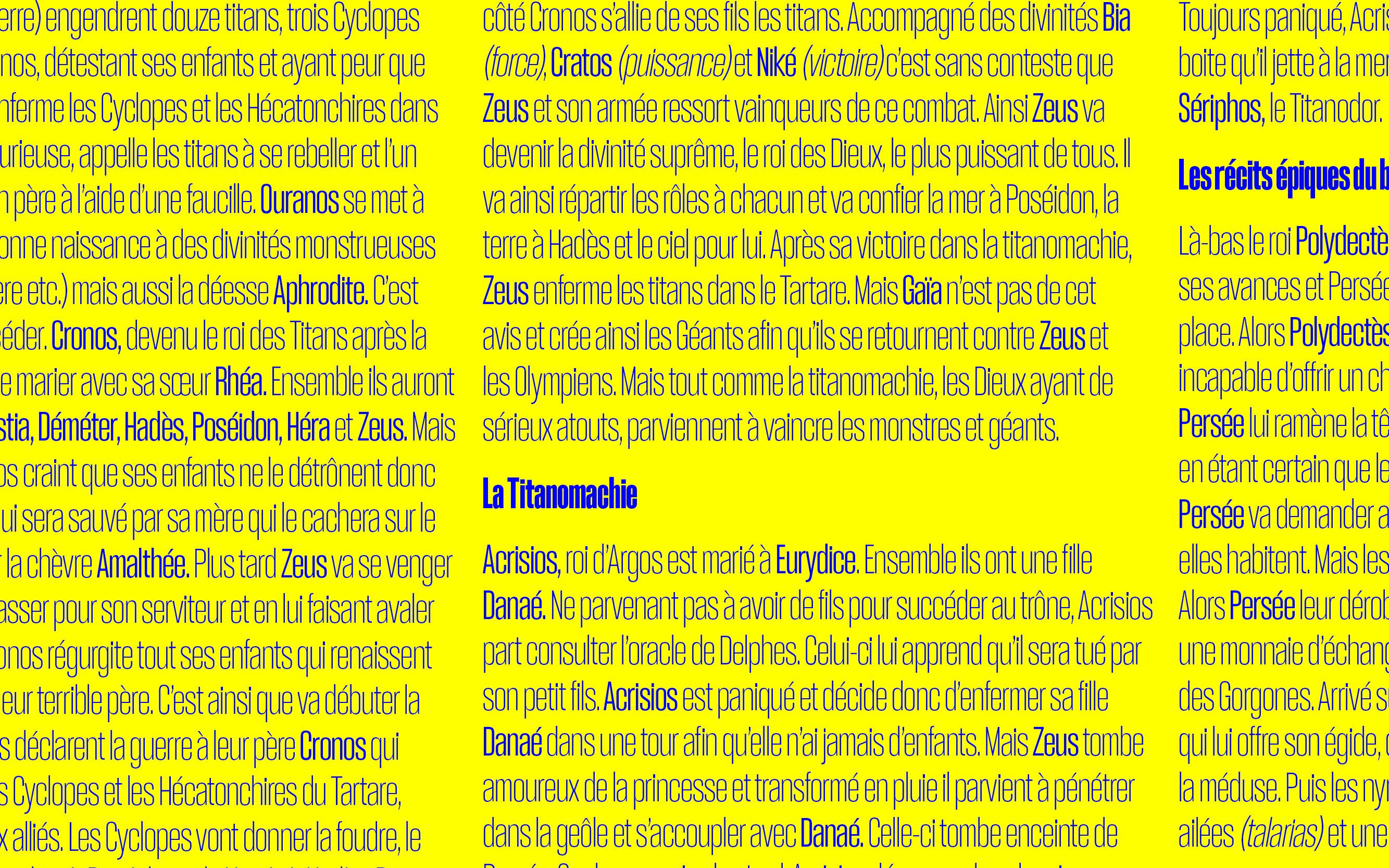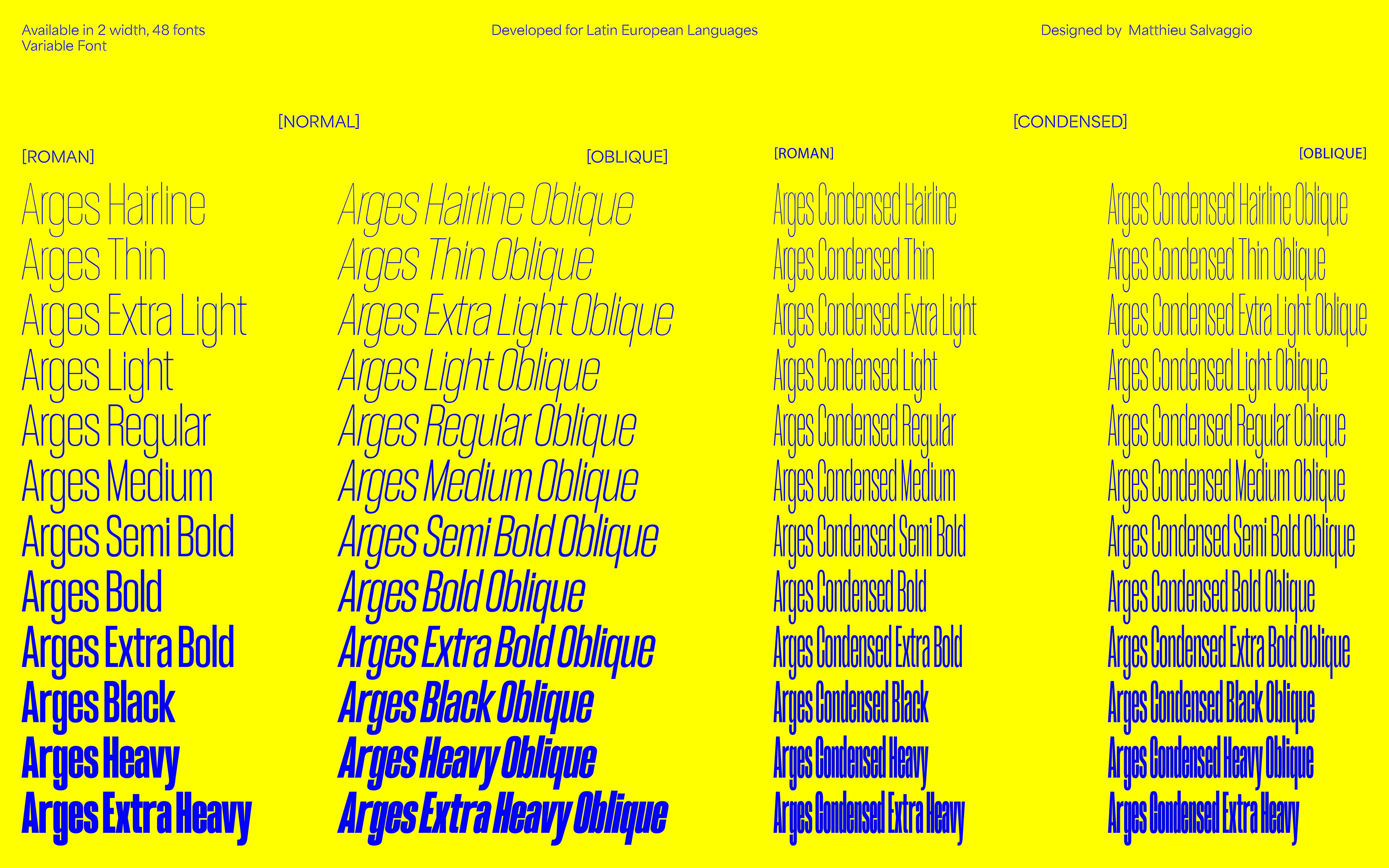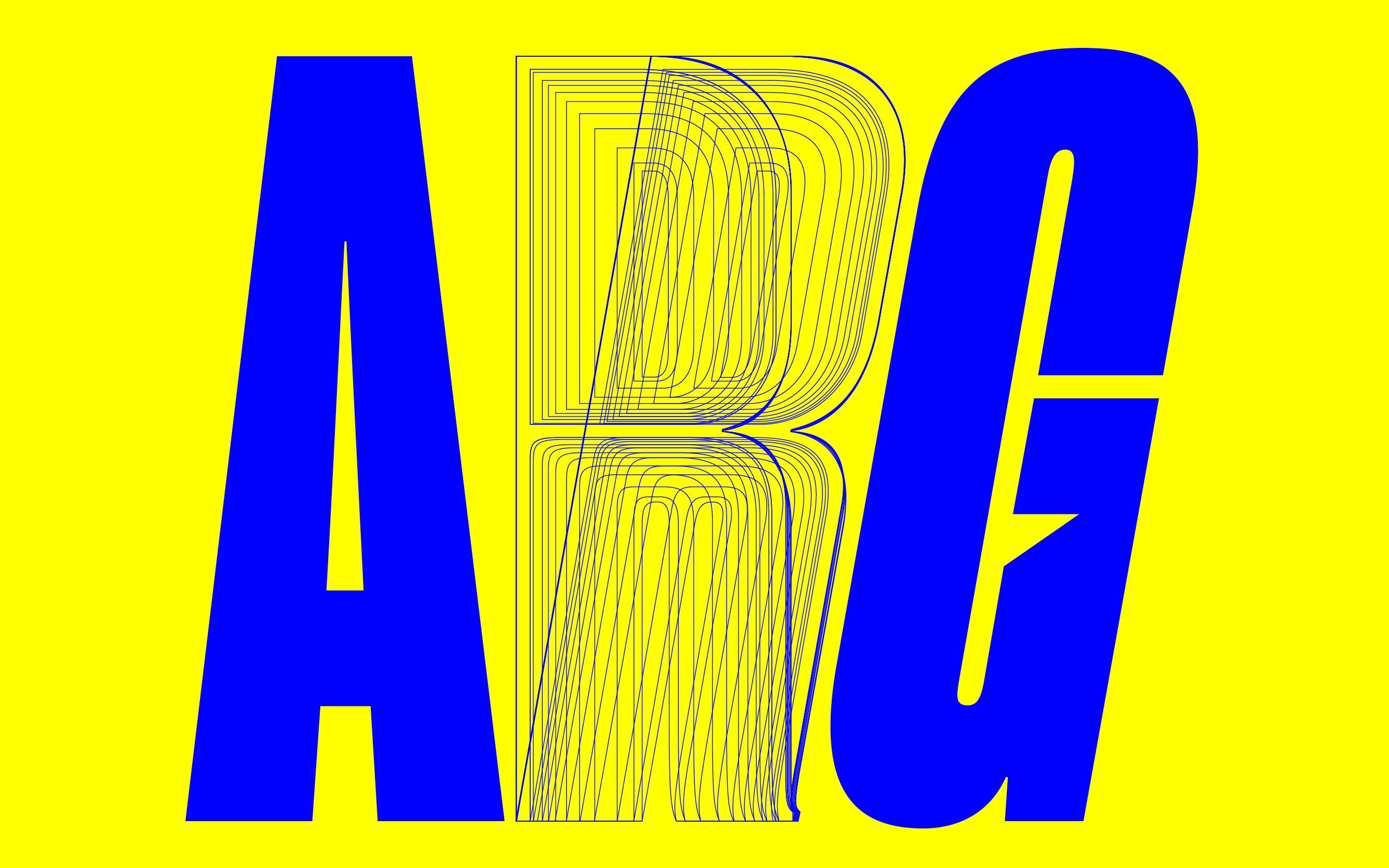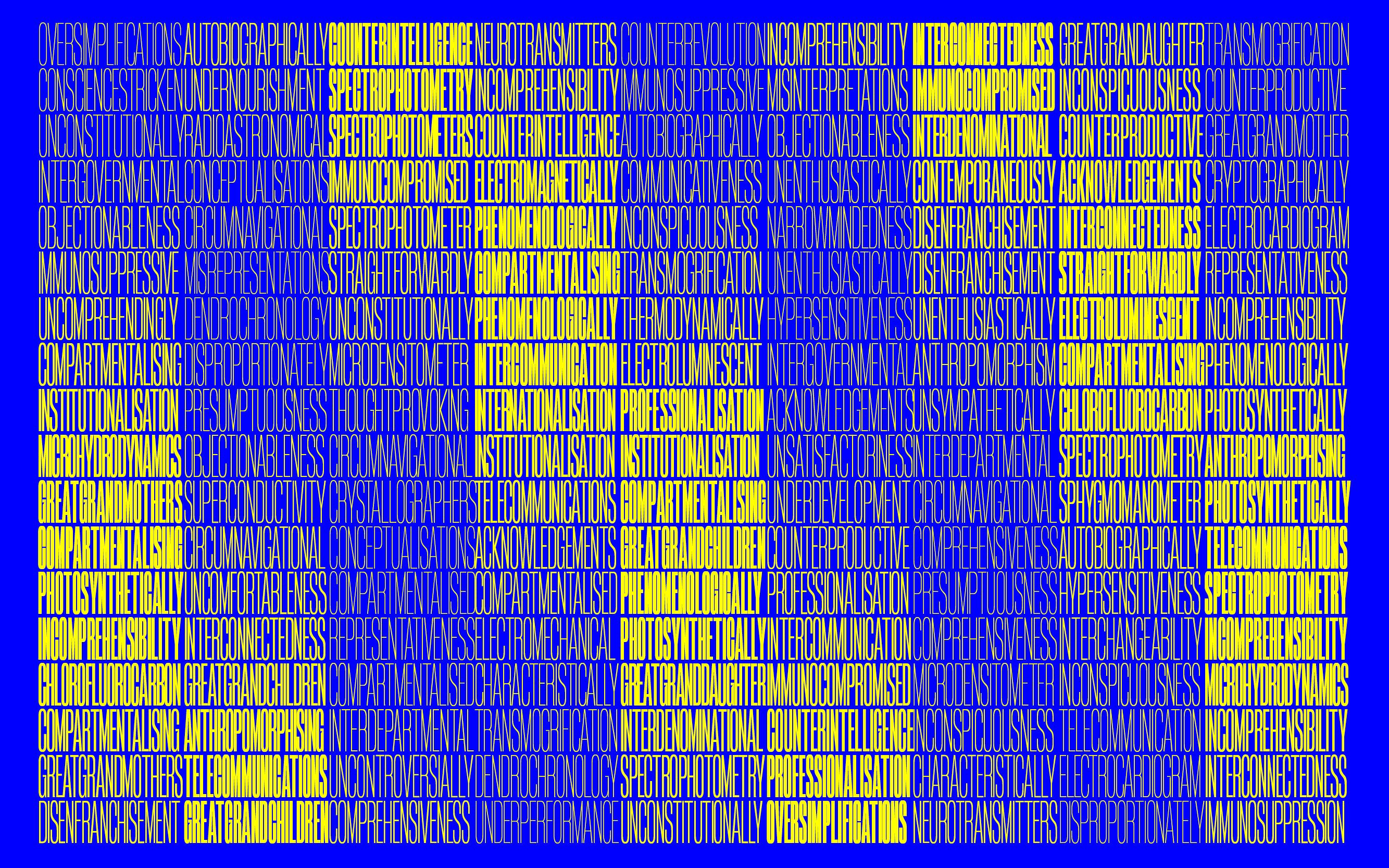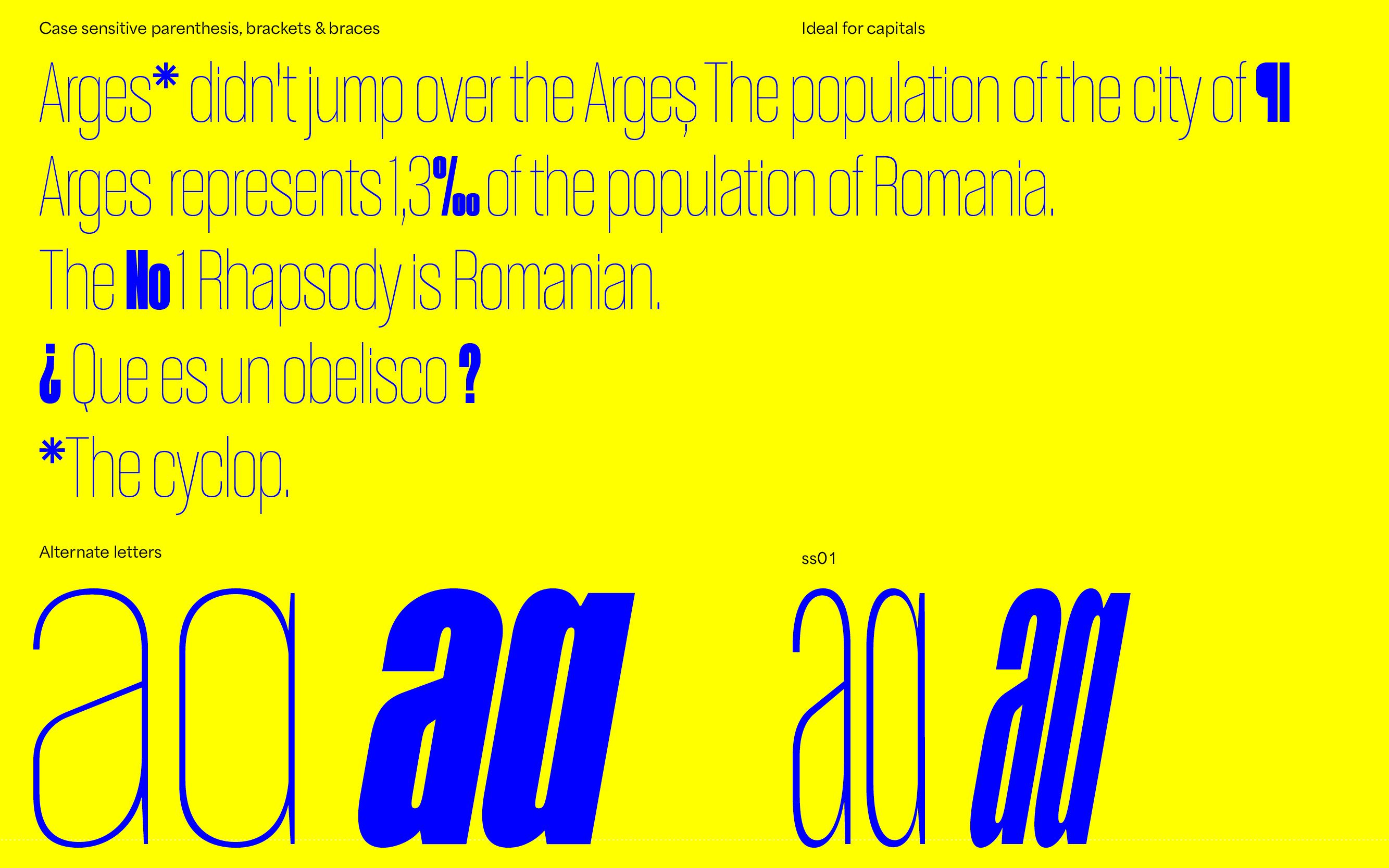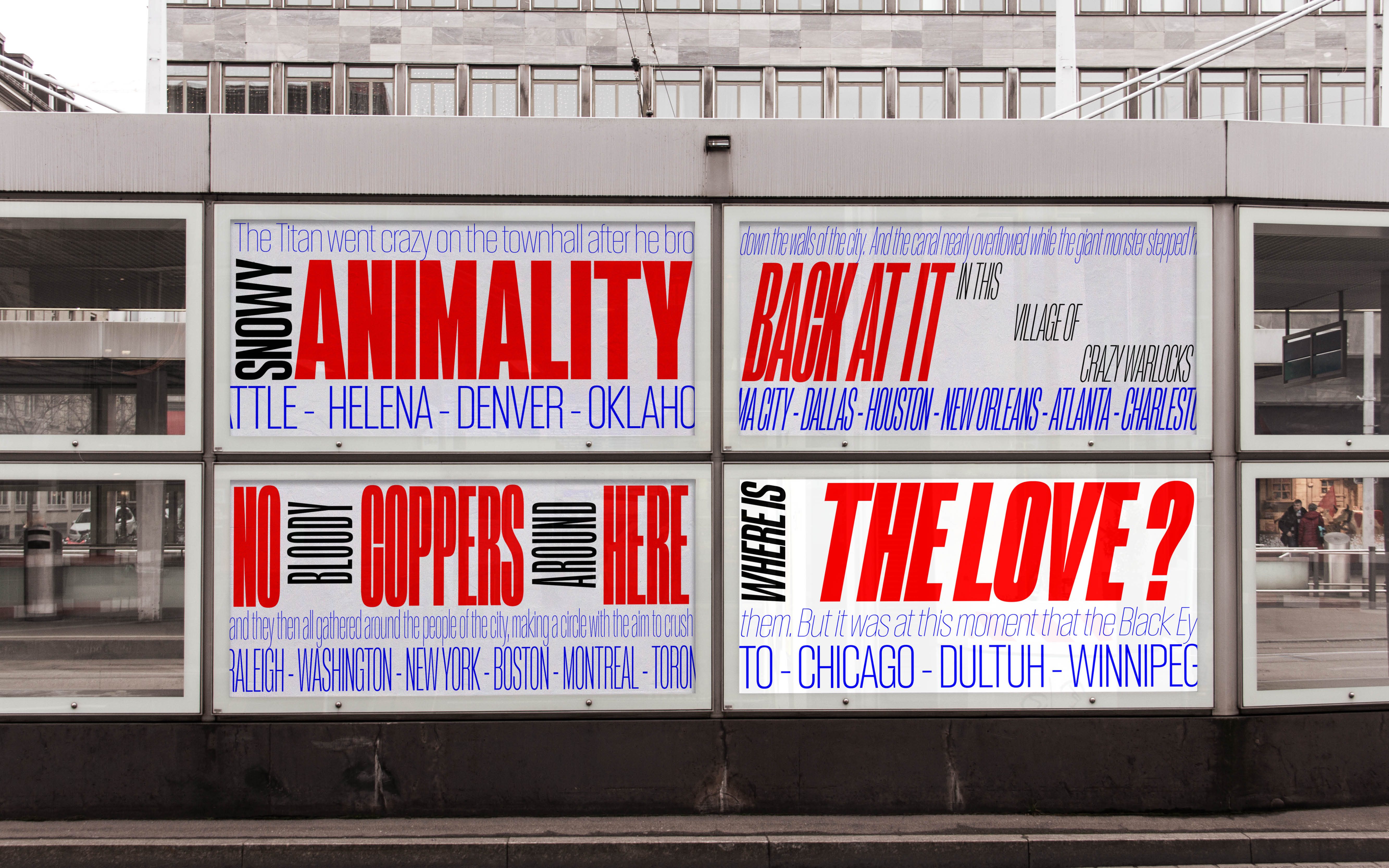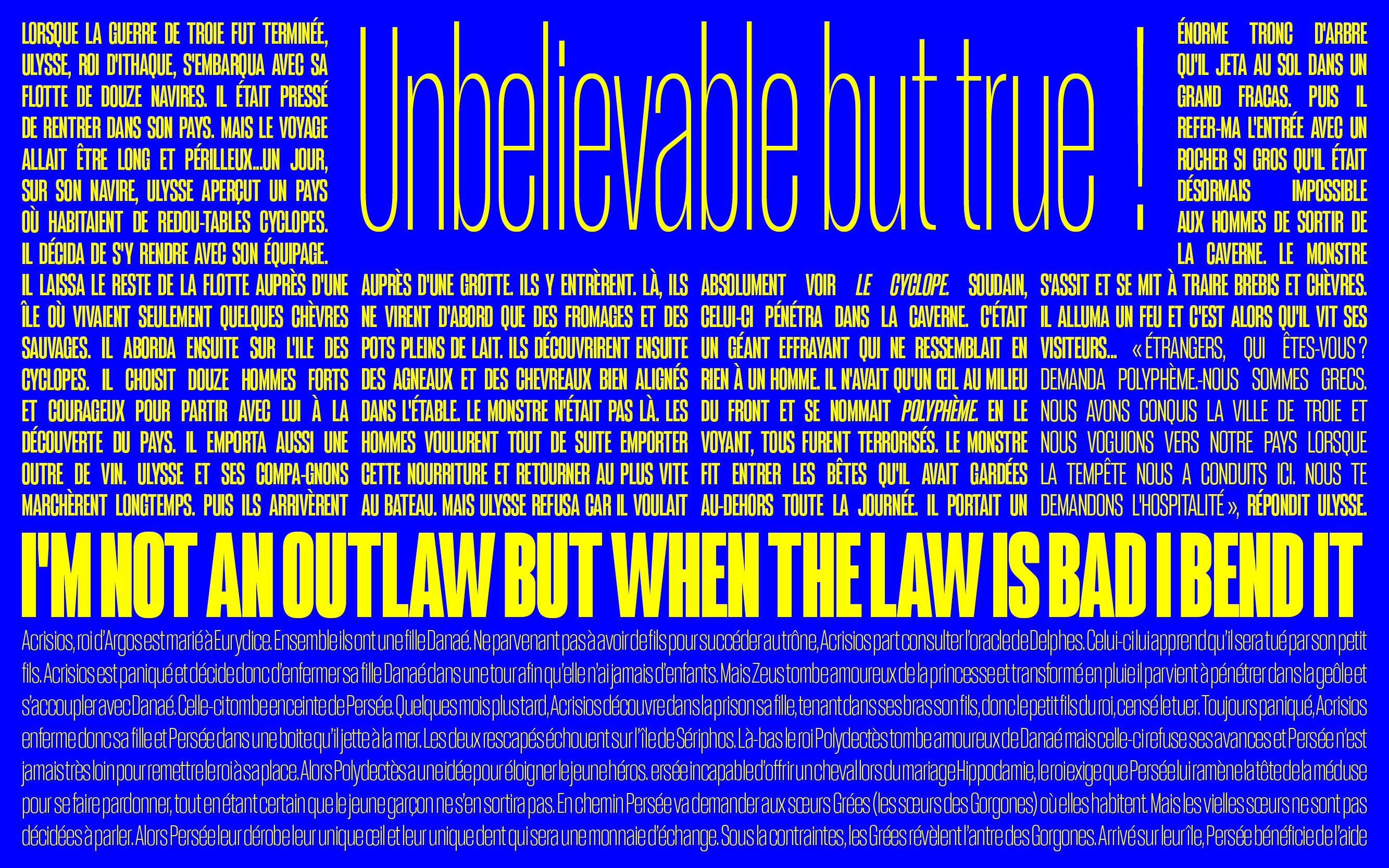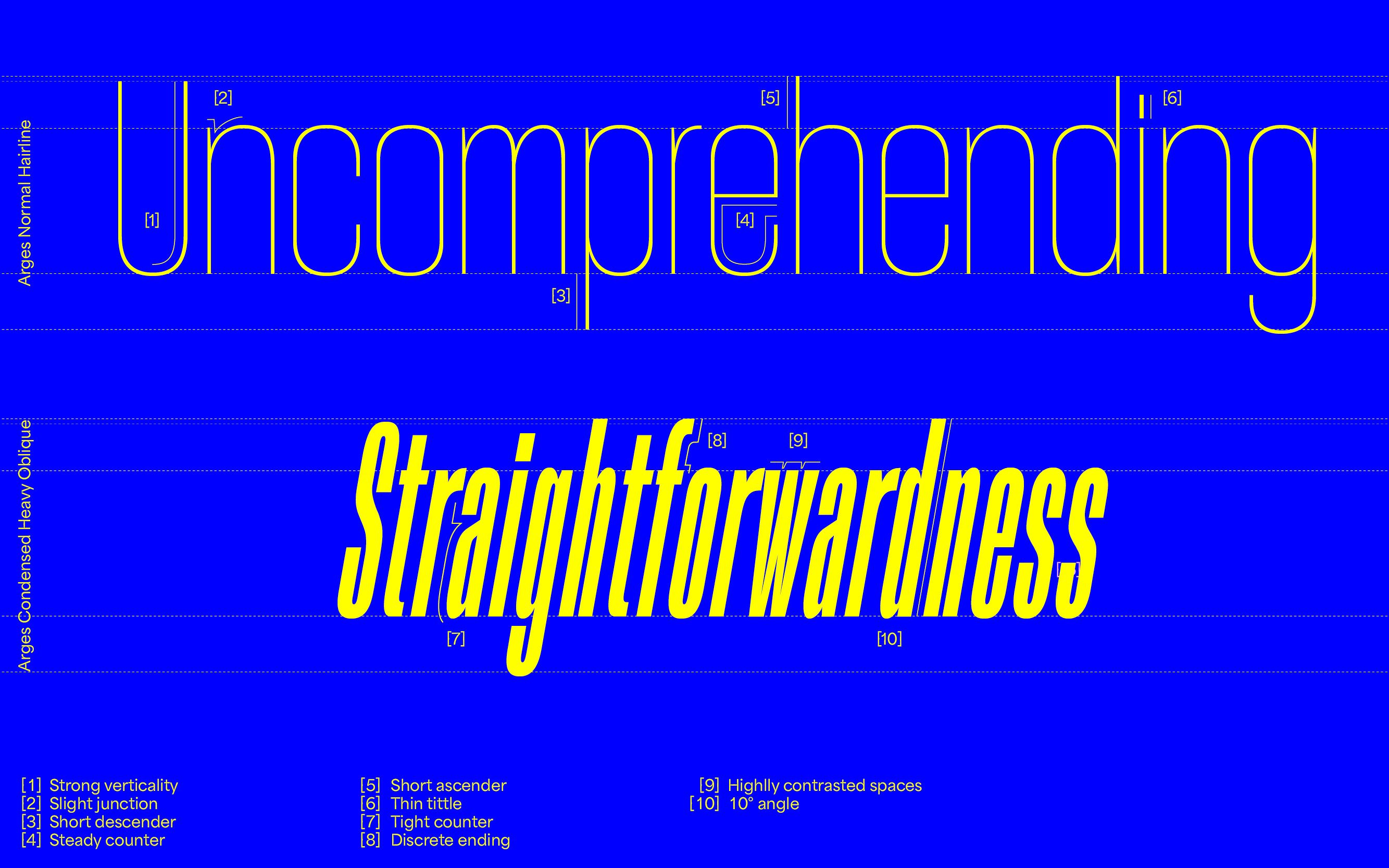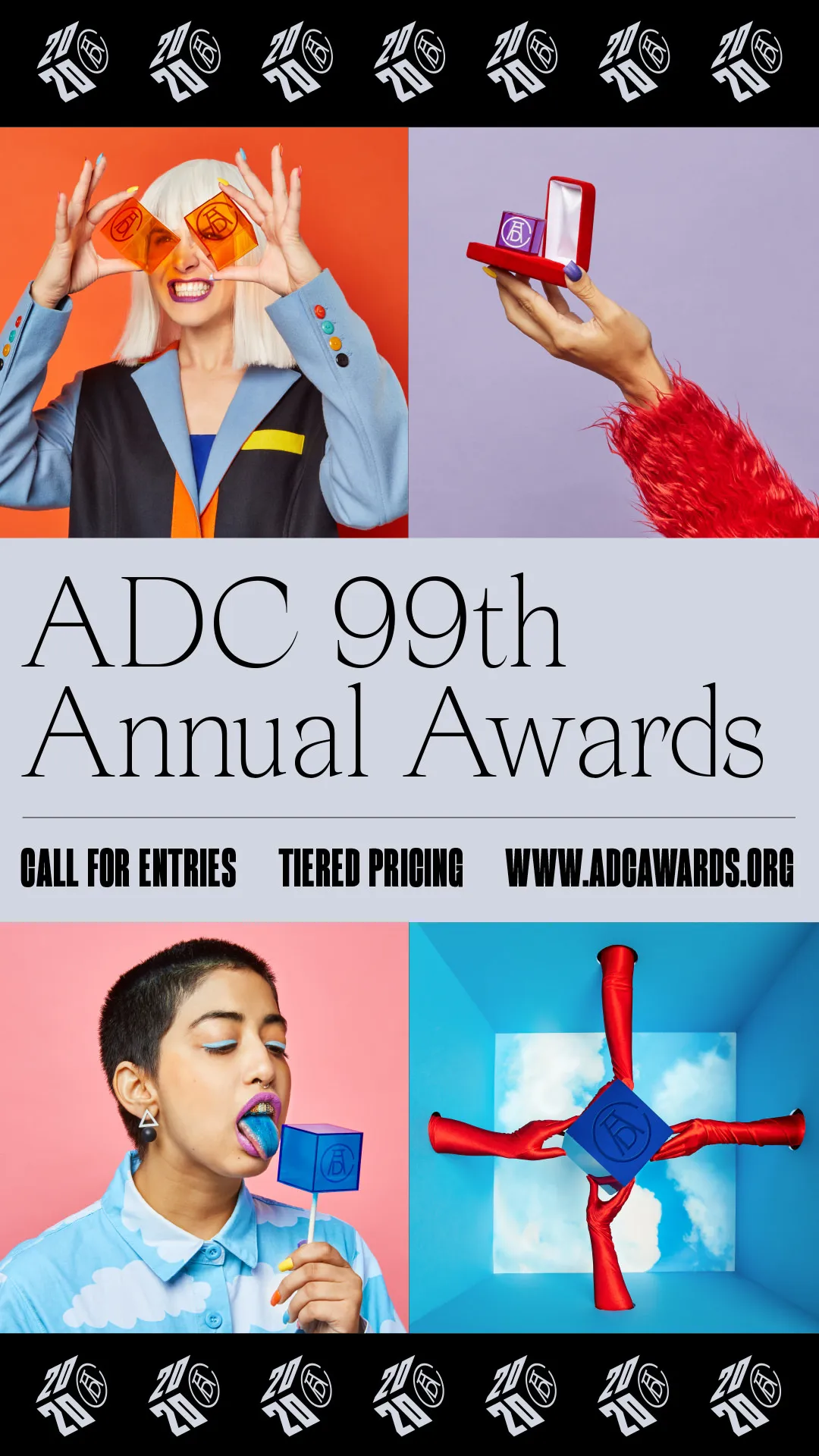
48 styles • Variable font
Arges
· 2 Families
A flexible heavy font tool, ideal for headlines and display.
Arges was Inspired by the famous Cyclope who helped forge Zeus’ thunder weapon. Completely rethought and fully redesigned during 2018–2019, Arges became a super family of 11 weights+matching obliques & two styles (Normal/Condensed). Originally thought to be a heavy font-tool meant for display and headlines it was completely revamped into a typeface family containing several useful weights for various text sizes and layouts.
Matthieu Salvaggio
2019